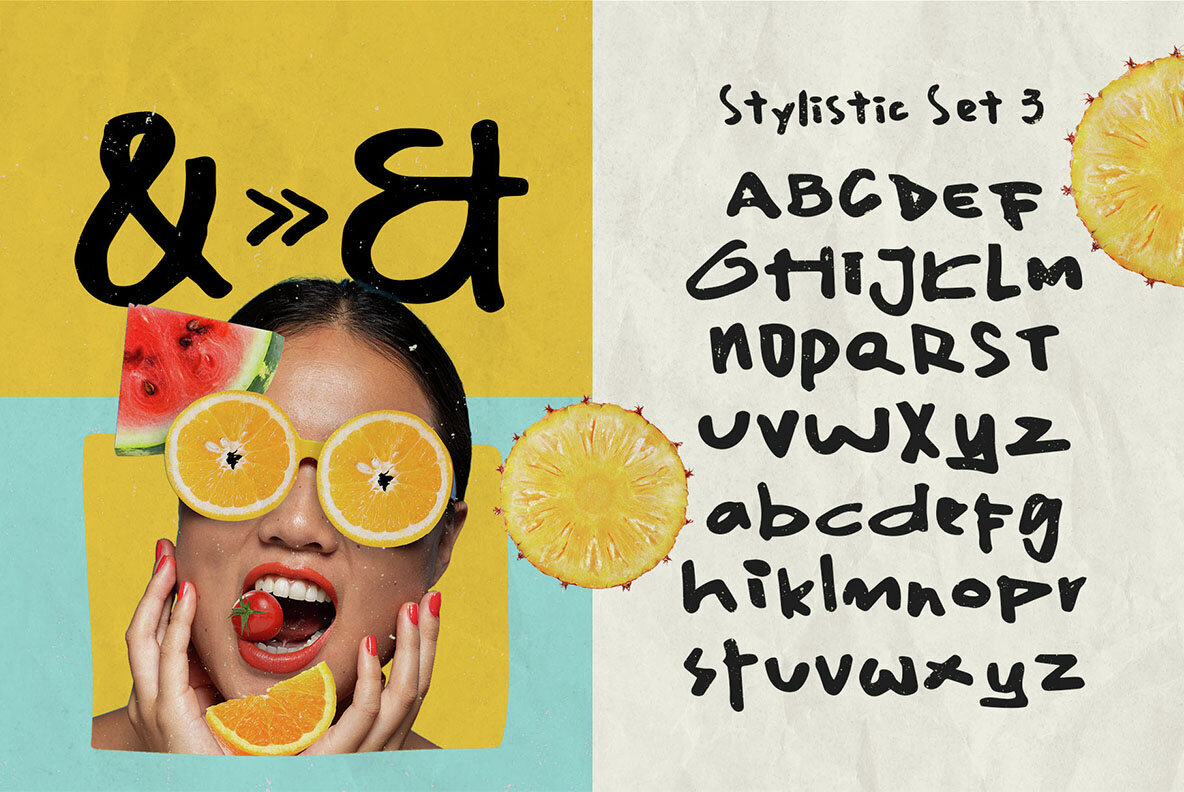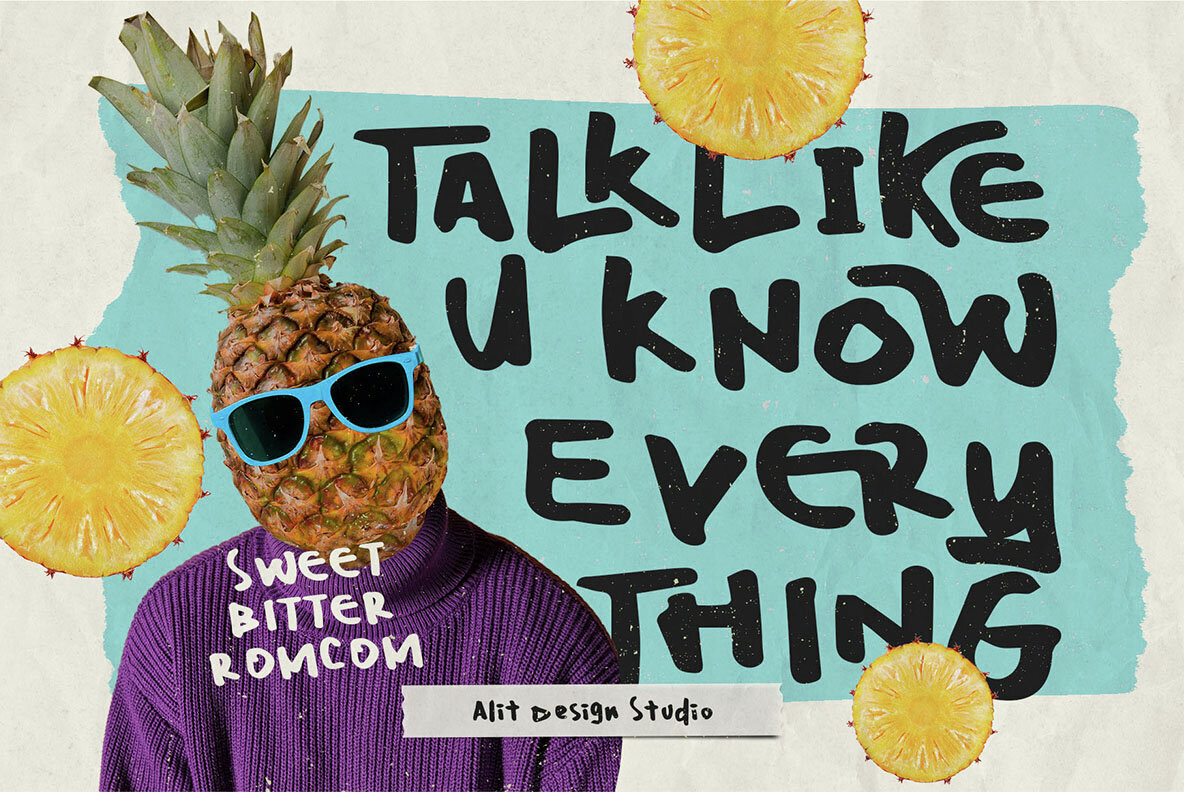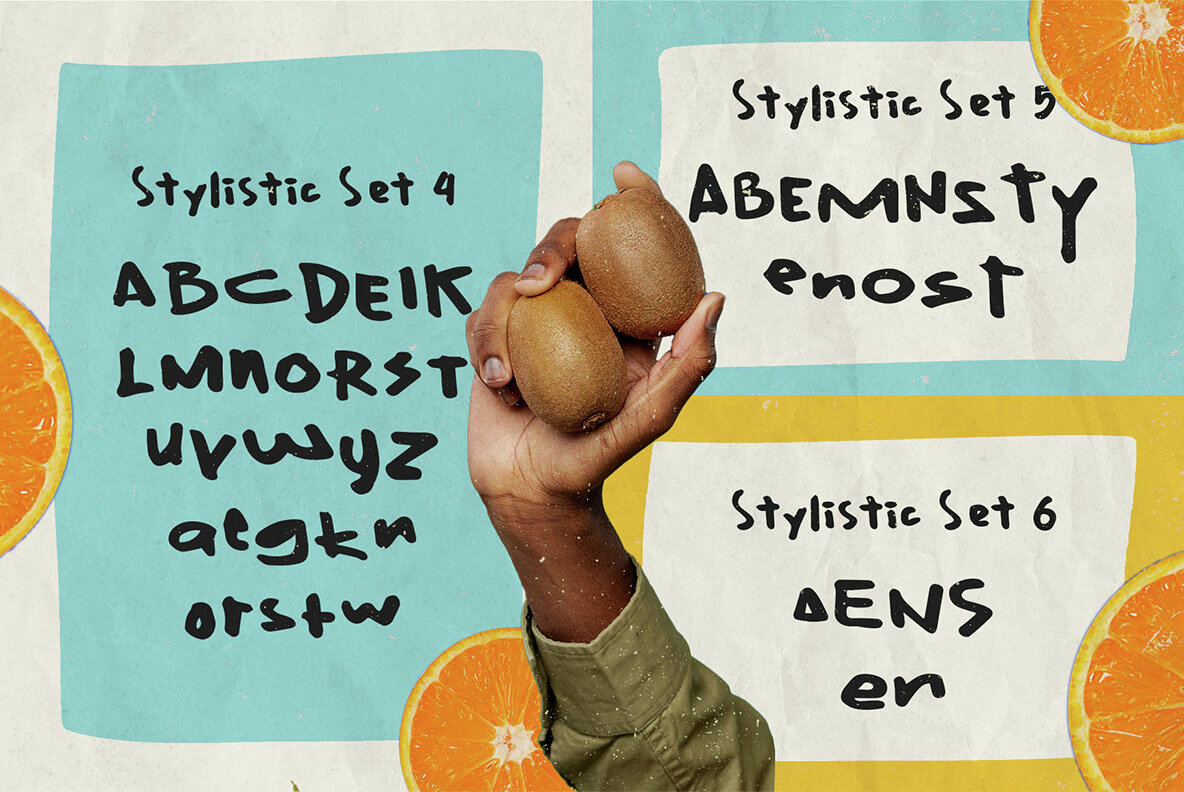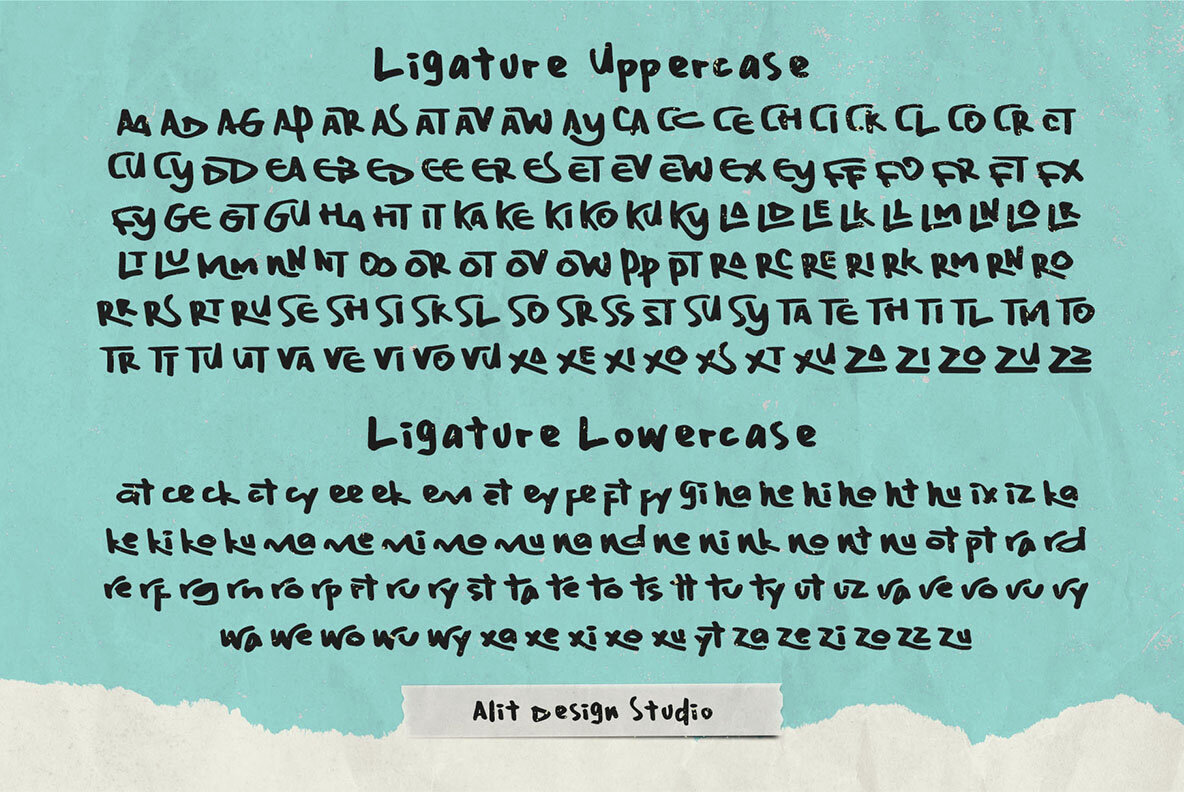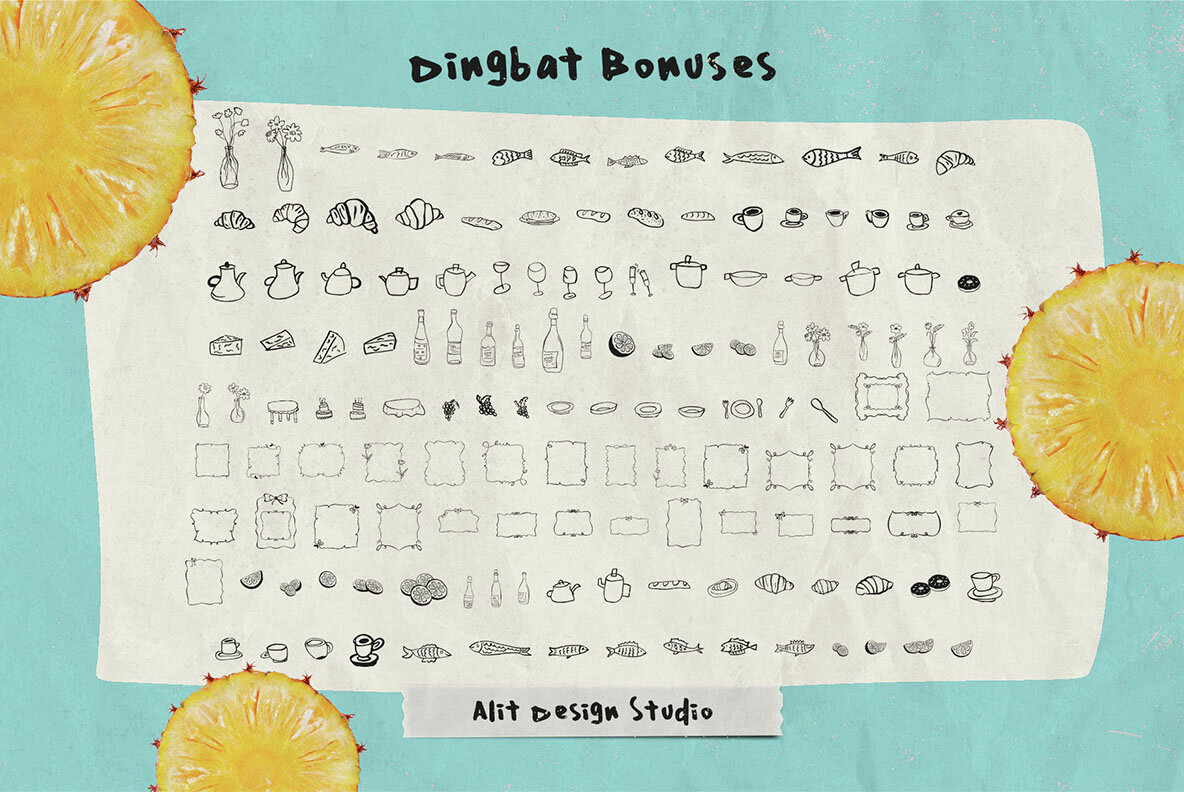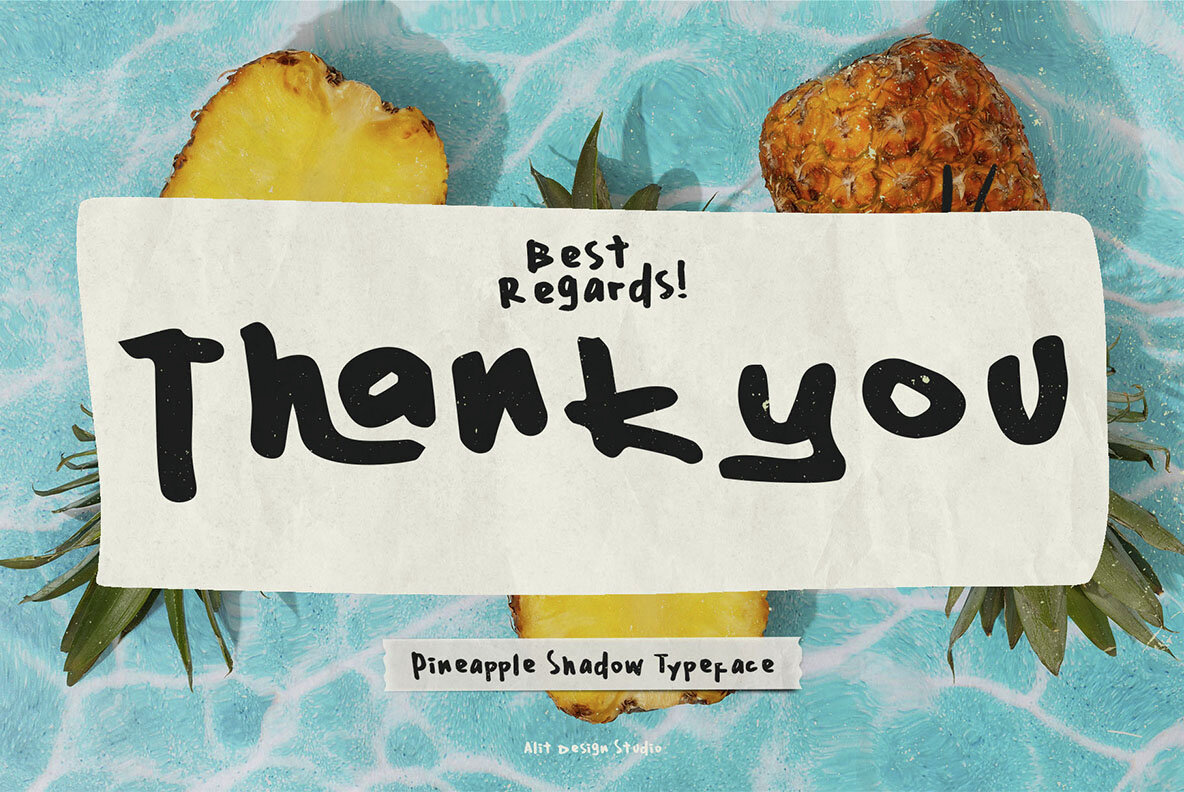
Pineapple Shadow Font
An elegantly handcrafted offering for graphic designers and marketing firms: Pineapple Shadow Typeface — a creation straight from the artistic brilliance of Alit Suarnegara. This delightful typeface marries the serenity of handwritten elegance to the joyful spontaneity of tropical charm. Visualise yourself peacefully reclining under gently swaying palm trees, indulging in a cool, rejuvenating drink as the sun sprinkle mottled shadows. That's the essence of Pineapple Shadow—your gateway to a relaxed, yet playful design ambiance.Experience Tropical Tranquility with Pineapple Shadow Typeface by Alit Suarnegara